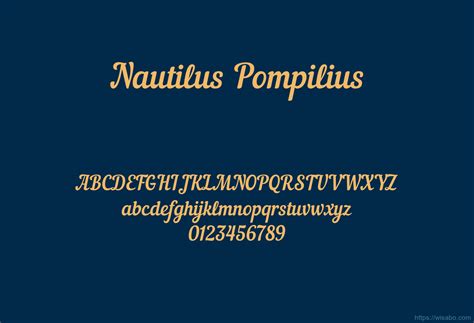
Nautilus Pompilius Font . Designed for using in headings, logos, posters and other notable places. Nautilus pompilius is a script type font that can be used on any device.
Web download nautilus pompilius font · free for commercial use · nautilus is a free modern script with smooth contrast. Web nautilus pompilius is a free modern script font with. Web nautilus is a modern script font with smooth contrast and many features.
Download it for free and use it in headings, logos, posters and more. Download it for free and use it in headings, logos, posters and more. Nautilus is a free modern script with smooth contrast. Designed for using in headings, logos, posters and other notable places.
Nautilus Pompilius Font - Web download nautilus pompilius font · free for commercial use · nautilus is a free modern script with smooth contrast. You can download it for free, view its character. This script font includes many gorgeous swashes, stylistic alternates, and ligatures. Web nautilus pompilius is a cursive script font designed by punk your brands. Designed for using in headings, logos, posters.
Nautilus Pompilius Font - Web nautilus is a modern script font with smooth contrast and many features. Web download nautilus pompilius font · free for commercial use · nautilus is a free modern script with smooth contrast. Web nautilus pompilius is a cursive script font designed by punk your brands. Designed for using in headings, logos, posters and other notable places. This script font.
Nautilus Pompilius Font - Download it for free and use it in headings, logos, posters and more. You can download it for free, view its character. Nautilus pompilius is a script type font that can be used on any device. Web nautilus is a free modern script with smooth contrast, designed for headings, logos, posters and other notable places. Web nautilus pompilius is a.
Nautilus Pompilius Font - Web download nautilus pompilius font · free for commercial use · nautilus is a free modern script with smooth contrast. You can download it for free, view its character. Web nautilus pompilius is a free modern script font with. Designed for using in headings, logos, posters and other notable places. Web nautilus is a free modern script with smooth contrast,.
Nautilus Pompilius Font - Designed for using in headings, logos, posters and other notable places. Web nautilus pompilius is a free font for commercial use created by punk you brands. Web nautilus is a free modern script with smooth contrast, designed for headings, logos, posters and other notable places. Nautilus is a free modern script with smooth contrast. You can download it for free,.
Nautilus Pompilius Font - This script font includes many gorgeous swashes, stylistic alternates, and ligatures. Web nautilus pompilius is a cursive script font designed by punk your brands. Web nautilus pompilius is a free font for commercial use created by punk you brands. Web nautilus pompilius is a free modern script font with. Web download nautilus pompilius font · free for commercial use ·.
Nautilus Pompilius Font - Nautilus pompilius is a script type font that can be used on any device. Web nautilus is a modern script font with smooth contrast and many features. Download it for free and use it in headings, logos, posters and more. Web nautilus pompilius is a free font for commercial use created by punk you brands. Nautilus is a free modern.
Nautilus Pompilius Font - Nautilus is a free modern script with smooth contrast. You can download it for free, view its character. Web nautilus is a free modern script with smooth contrast, designed for headings, logos, posters and other notable places. Designed for using in headings, logos, posters and other notable places. Web nautilus pompilius is a free modern script font with.
Nautilus Pompilius Font - Nautilus is a free modern script with smooth contrast. Nautilus pompilius is a script type font that can be used on any device. Web nautilus pompilius is a cursive script font designed by punk your brands. Web download nautilus pompilius font · free for commercial use · nautilus is a free modern script with smooth contrast. Web nautilus is a.
Nautilus Pompilius Font - This script font includes many gorgeous swashes, stylistic alternates, and ligatures. Nautilus is a free modern script with smooth contrast. Web nautilus pompilius is a cursive script font designed by punk your brands. Designed for using in headings, logos, posters and other notable places. You can download it for free, view its character.
Nautilus Pompilius Font - Nautilus pompilius is a script type font that can be used on any device. Web nautilus pompilius is a cursive script font designed by punk your brands. Download it for free and use it in headings, logos, posters and more. Web nautilus pompilius is a free modern script font with. Web download nautilus pompilius font · free for commercial use.
Nautilus Pompilius Font - Web nautilus is a free modern script with smooth contrast, designed for headings, logos, posters and other notable places. Nautilus is a free modern script with smooth contrast. Designed for using in headings, logos, posters and other notable places. You can download it for free, view its character. This script font includes many gorgeous swashes, stylistic alternates, and ligatures.
Nautilus Pompilius Font - Web nautilus pompilius is a free font for commercial use created by punk you brands. Web nautilus is a free modern script with smooth contrast, designed for headings, logos, posters and other notable places. Web nautilus is a modern script font with smooth contrast and many features. Nautilus is a free modern script with smooth contrast. Designed for using in.
Source: justfreefonts.com
Nautilus Pompilius Font - You can download it for free, view its character. Nautilus pompilius is a script type font that can be used on any device. Nautilus is a free modern script with smooth contrast. Web nautilus pompilius is a free modern script font with. Web nautilus pompilius is a free font for commercial use created by punk you brands.
Nautilus Pompilius Font - Designed for using in headings, logos, posters and other notable places. Nautilus pompilius is a script type font that can be used on any device. Web nautilus pompilius is a free font for commercial use created by punk you brands. Web download nautilus pompilius font · free for commercial use · nautilus is a free modern script with smooth contrast..
Nautilus Pompilius Font - You can download it for free, view its character. Web nautilus pompilius is a free modern script font with. Nautilus pompilius is a script type font that can be used on any device. Web nautilus pompilius is a cursive script font designed by punk your brands. Web nautilus pompilius is a free font for commercial use created by punk you.
Nautilus Pompilius Font - Web nautilus pompilius is a free modern script font with. Designed for using in headings, logos, posters and other notable places. Web nautilus pompilius is a cursive script font designed by punk your brands. Web nautilus is a free modern script with smooth contrast, designed for headings, logos, posters and other notable places. Nautilus pompilius is a script type font.
Nautilus Pompilius Font - Download it for free and use it in headings, logos, posters and more. Web nautilus is a modern script font with smooth contrast and many features. Web nautilus pompilius is a cursive script font designed by punk your brands. Web nautilus pompilius is a free modern script font with. Web nautilus pompilius is a free font for commercial use created.